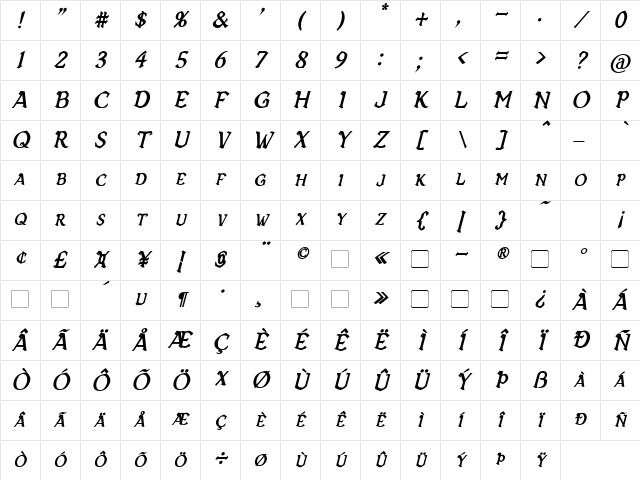
Vecna Bold Italic
Foundry: Neale Davidson
Designer: Neale Davidson
Design Context for Vecna
Vecna is a composed and adaptable typeface that performs quietly and consistently across a wide range of design contexts. The slanted form adds forward momentum and visual energy. Its bold stroke weight gives it real presence on the page.